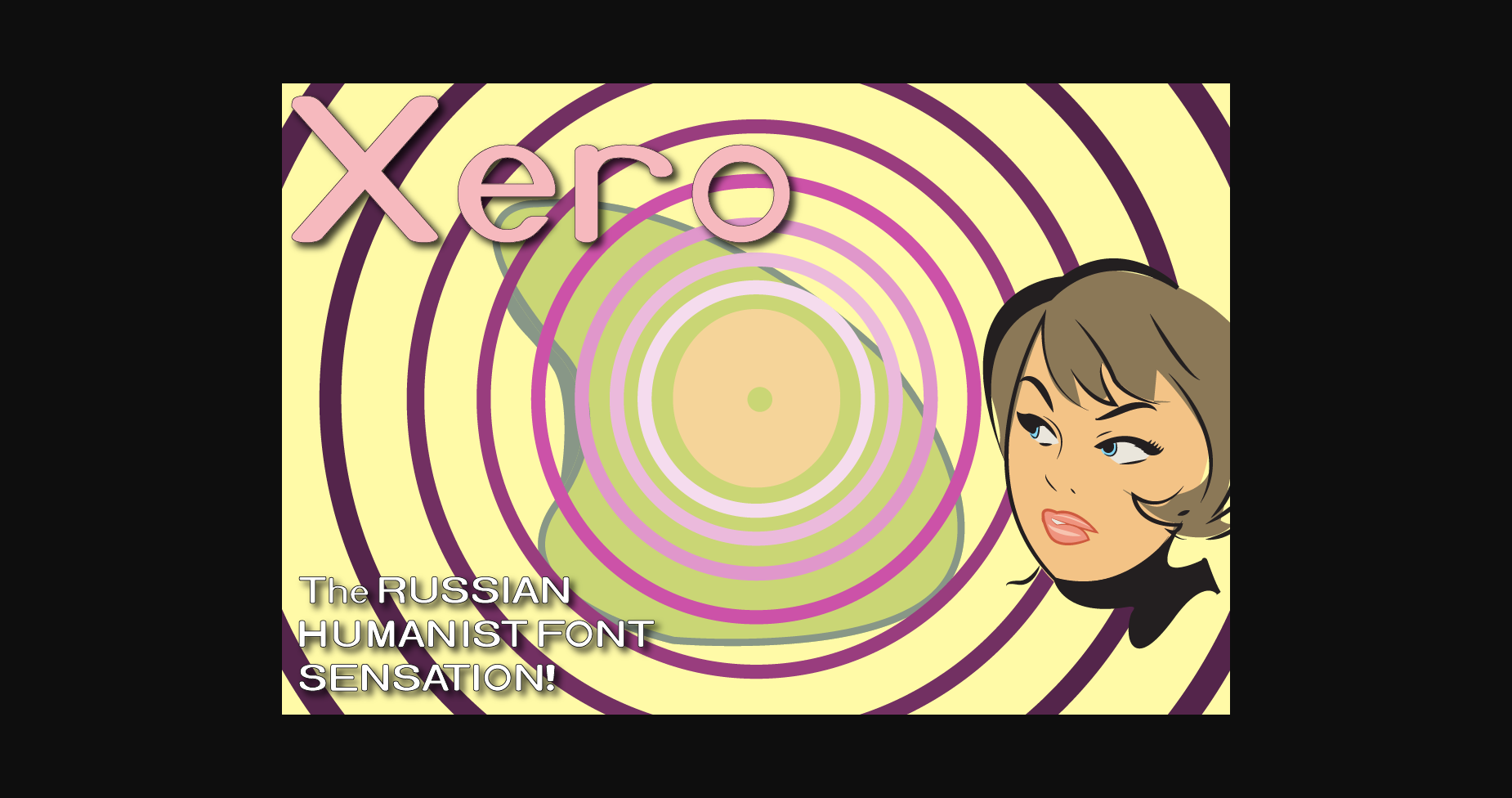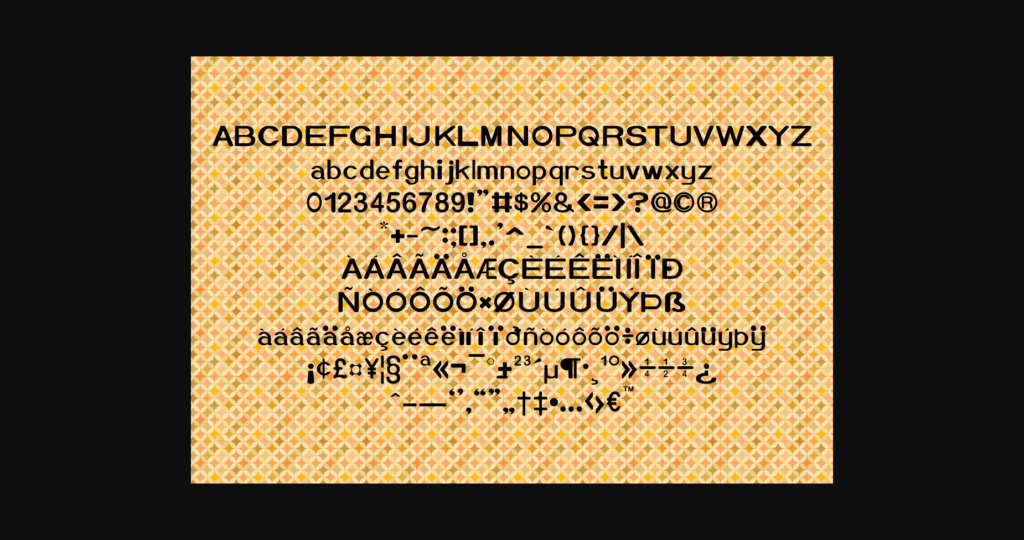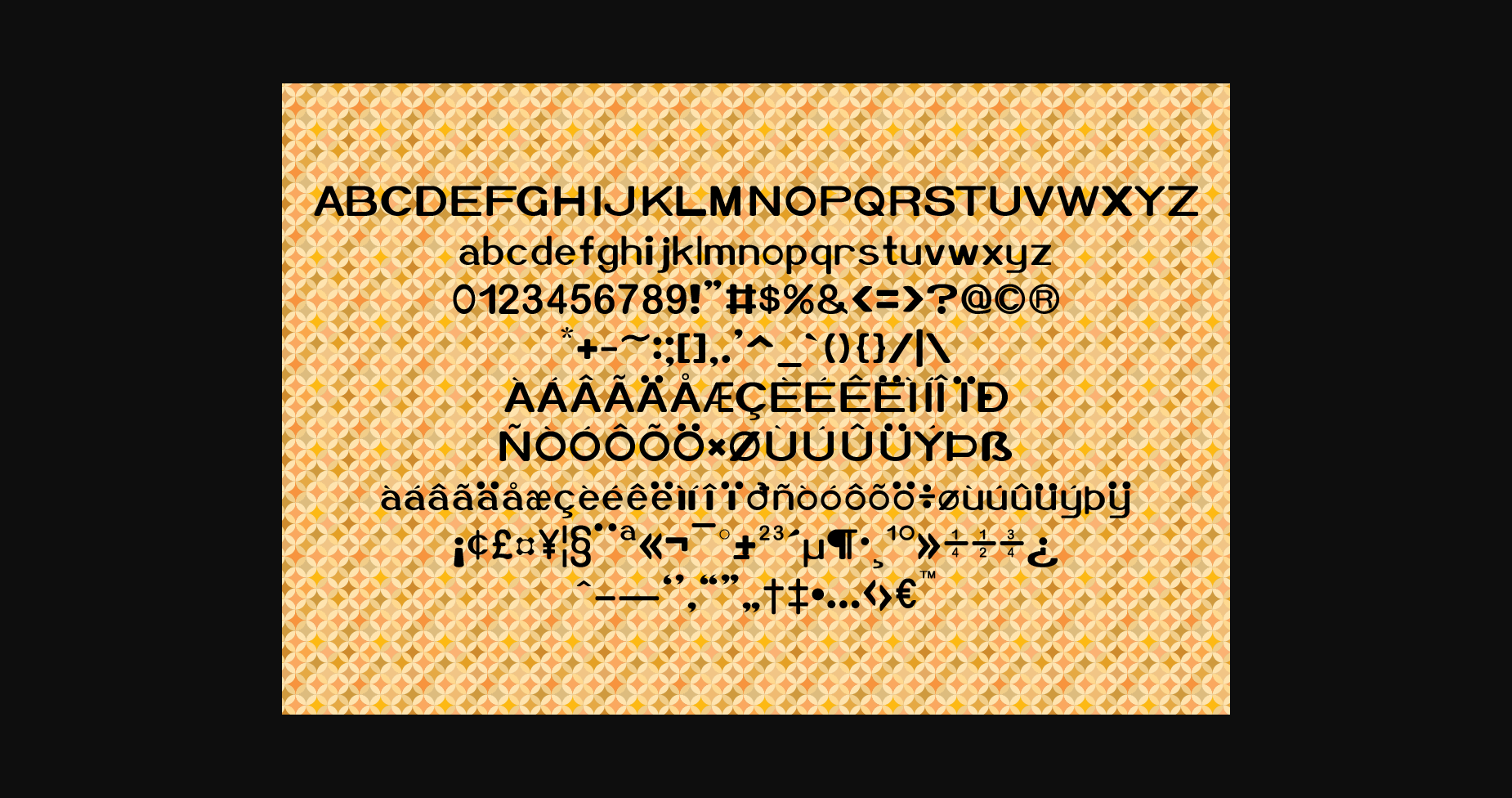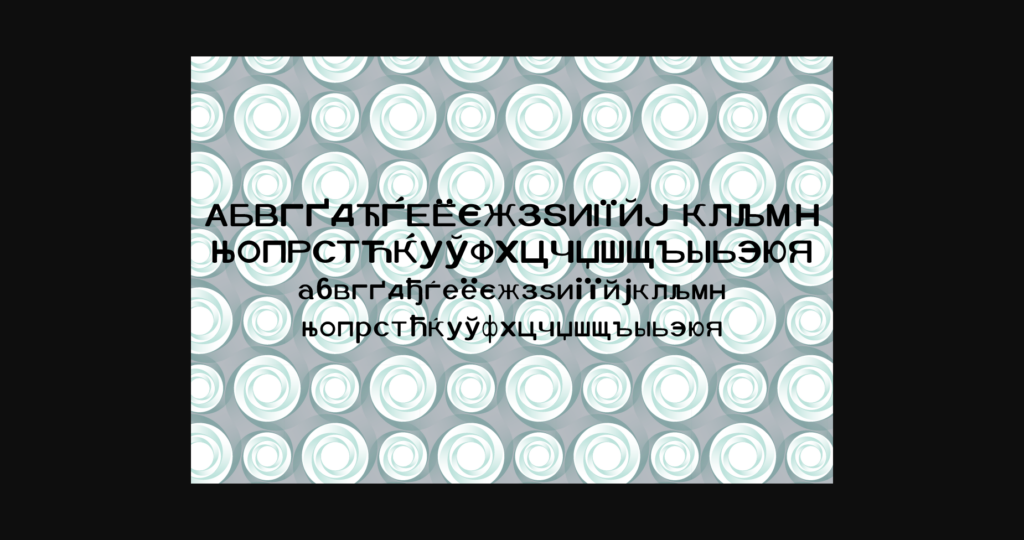
Xero – Hollow Italic Font
About Xero – Hollow Italic Font
Xero is a unique sans-serif font that is sure to turn heads. With its irregular shapes and unexpected details, this font stands out from the crowd. Perfect for attention-grabbing headlines, posters, and branding, “Xero” is a bold choice for those looking to make a statement. Keep in mind that the font is PUA encoded, meaning that you can access all delightful glyphs and swashes freely.